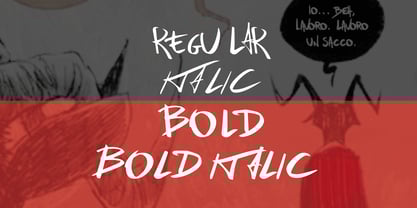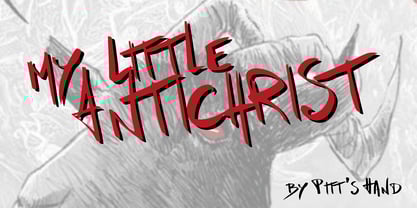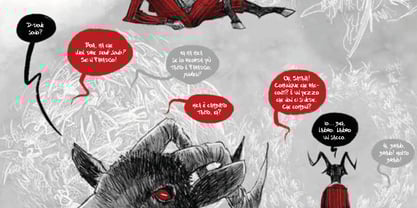
My Little Antichrist
by Pitt's Hand
The My Little Antichrist Font Family was designed by Pietro Rotelli and published by Pitt's Hand. My Little Antichrist contains 5 styles and family package options. More about this family
My Little Antichrist is a dramatic, evocative typeface crafted for storytelling that delves into the dark and otherworldly. Its five versions provide a comprehensive range of expressive tones, perfect for giving voice to characters who embody chaos, malevolence, or an unsettling charm.